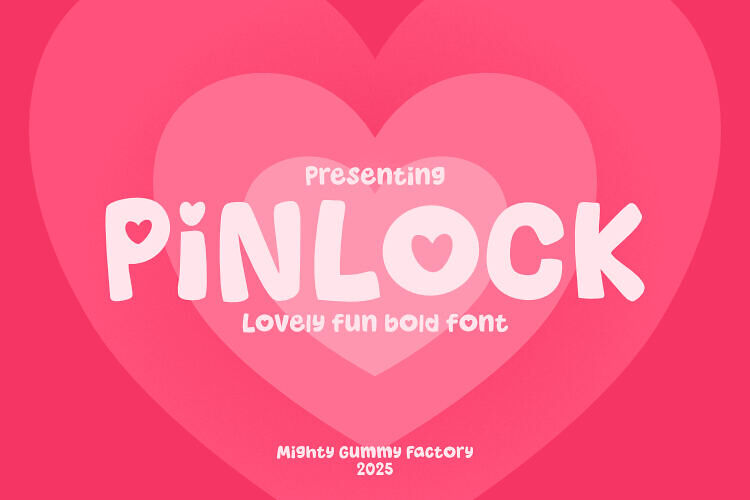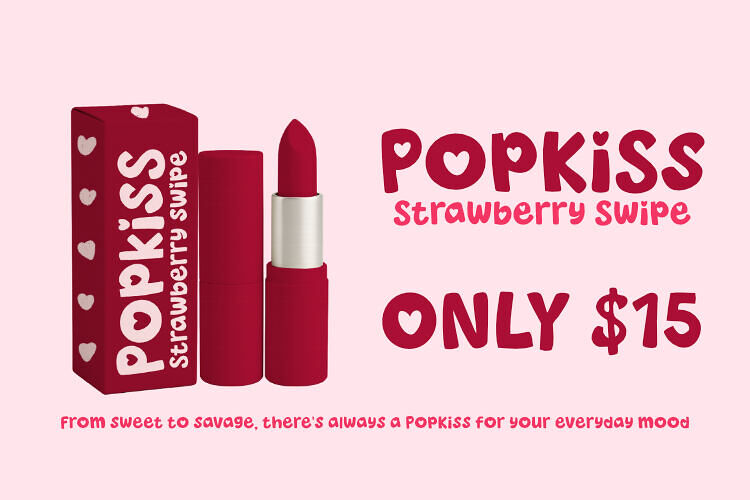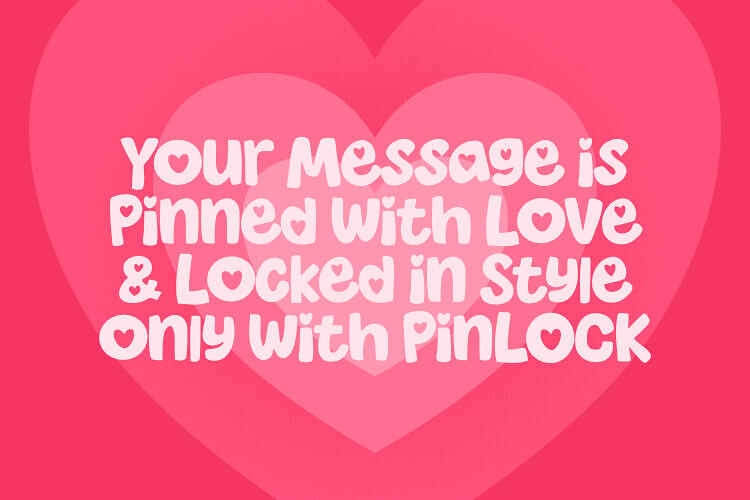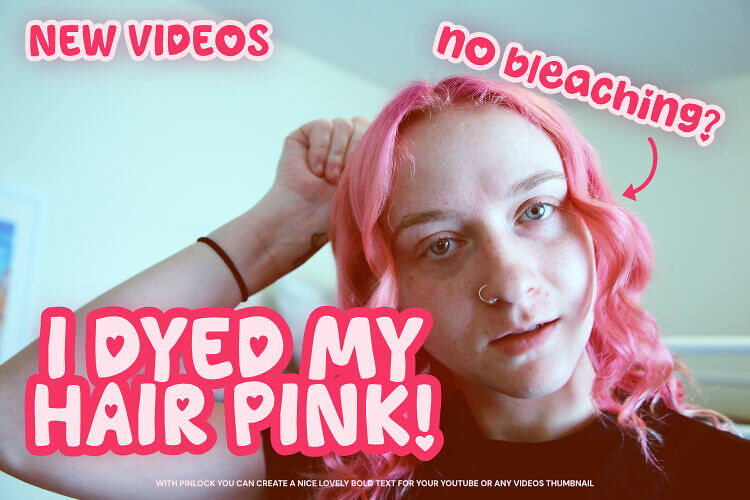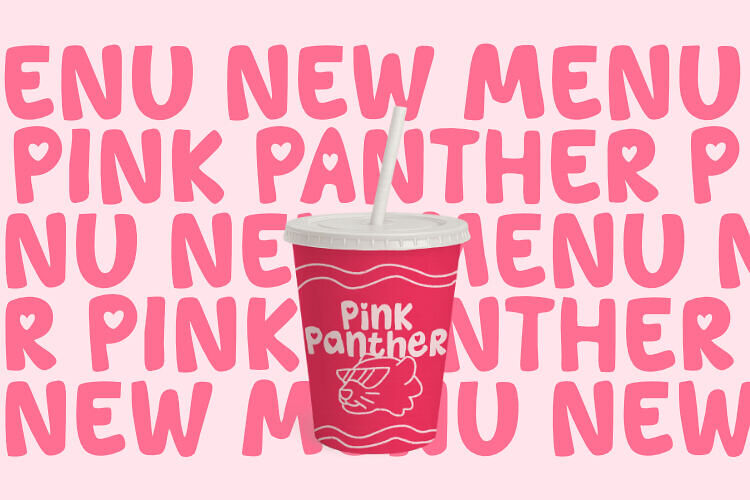
PINLOCK is a lovely, fun bold font with rounded forms and heart-filled character. It’s the perfect choice for designs that want to feel soft, sweet, and full of charm — from Valentine’s cards to kid-friendly packaging and romantic social media posts.
With a bubbly structure and playful personality, PINLOCK brings warmth and love to every letter, making it ideal for cute design lovers, hobby crafters, and professional creatives alike.